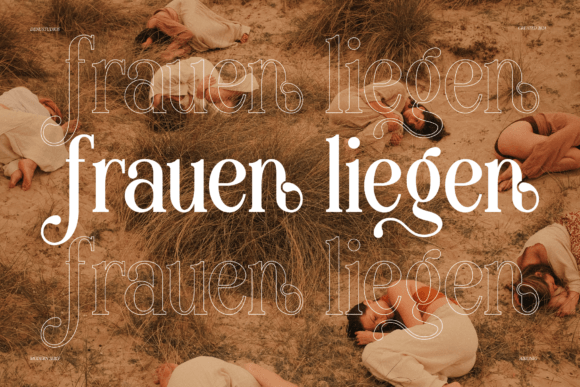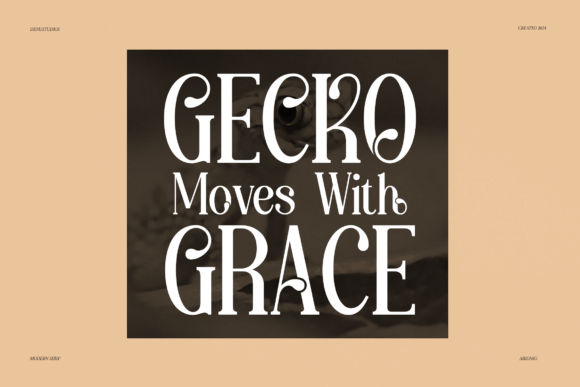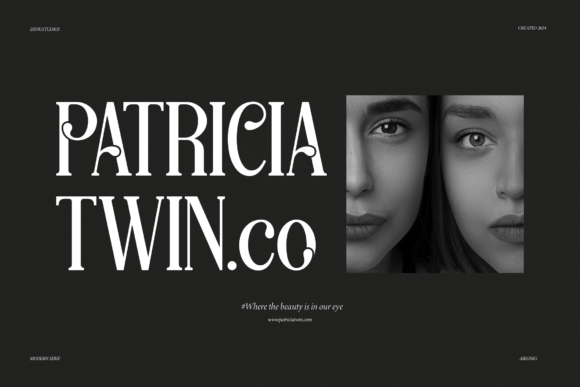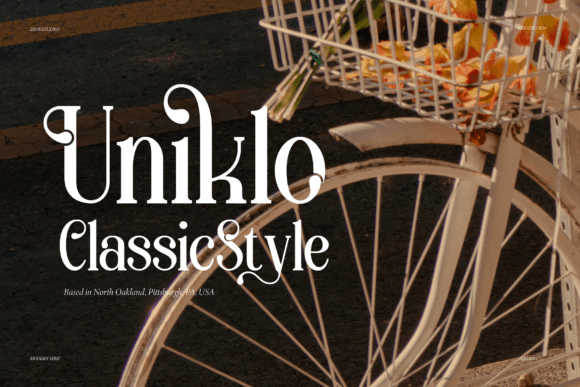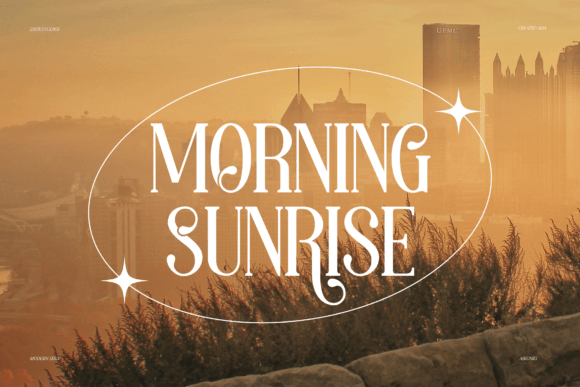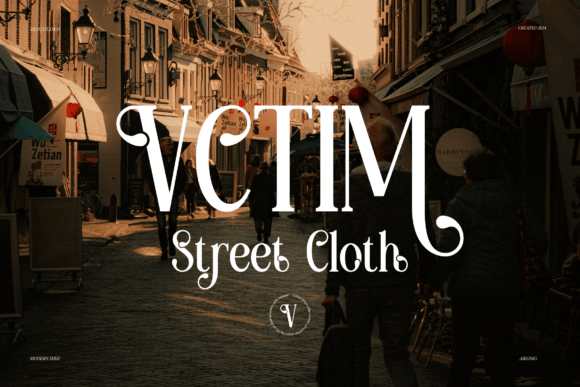
What is Aikonig Font?
Aikonig is a modern serif font that combines classic serif details with a contemporary feel. Its clean, stylish letters make it perfect for elegant and professional designs. The balanced shapes and sharp lines give it a sophisticated yet approachable look, making it ideal for designers, crafters, and creative hobbyists. ✅
Here’s what I love about Aikonig Font:
- ✨ Clean and stylish letters: Aikonig’s modern serif design makes it perfect for a wide range of design projects.
- ✅ Elegant and professional feel: The font’s balanced shapes and sharp lines give it a sophisticated look that’s perfect for clients who want a high-end feel.
- 💡 OpenType features: Aikonig supports a range of OpenType features, including glyphs and stylistic alternates, making it versatile and customizable.
And here are some small quirks or limitations:
- 🤔 Limited availability of certain characters: Some users have reported that certain characters, such as ligatures, are not available in Aikonig.
The Designer Behind Aikonig
Aikonig was designed by a team of typographers who wanted to create a modern serif font that combines classic elegance with a contemporary feel. The design process involved countless hours of research, experimentation, and refinement to create a font that’s both stylish and functional.
| Author | Denustudios |
| What is Aikonig Font? | Aikonig is a modern serif font that combines classic serif details with a contemporary feel, making it perfect for elegant and professional designs. |